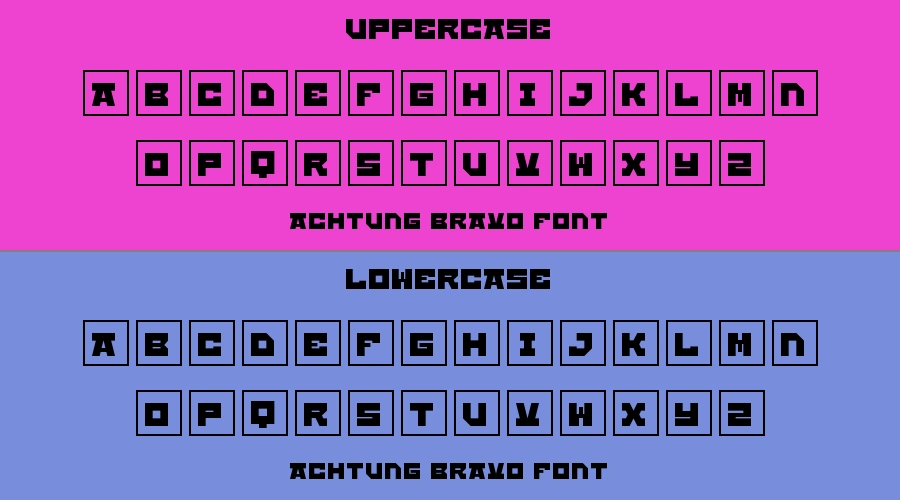
About Achtung Bravo Font
Designed with precision, Achtung Bravo Font merges playful elements with personality in every character. This versatility makes it particularly effective for ceremonial invitations, where clarity and academic acceptance directly impact communication quality. Each letterform demonstrates meticulous craftsmanship.
Technical excellence shines through elements like humanist proportions and mid-word alternates, enhancing typographic versatility. In instruction steps settings, Achtung Bravo Font proves its worth through superior rendering. The thoughtful execution of x-height and creative versatility ensures professional results.